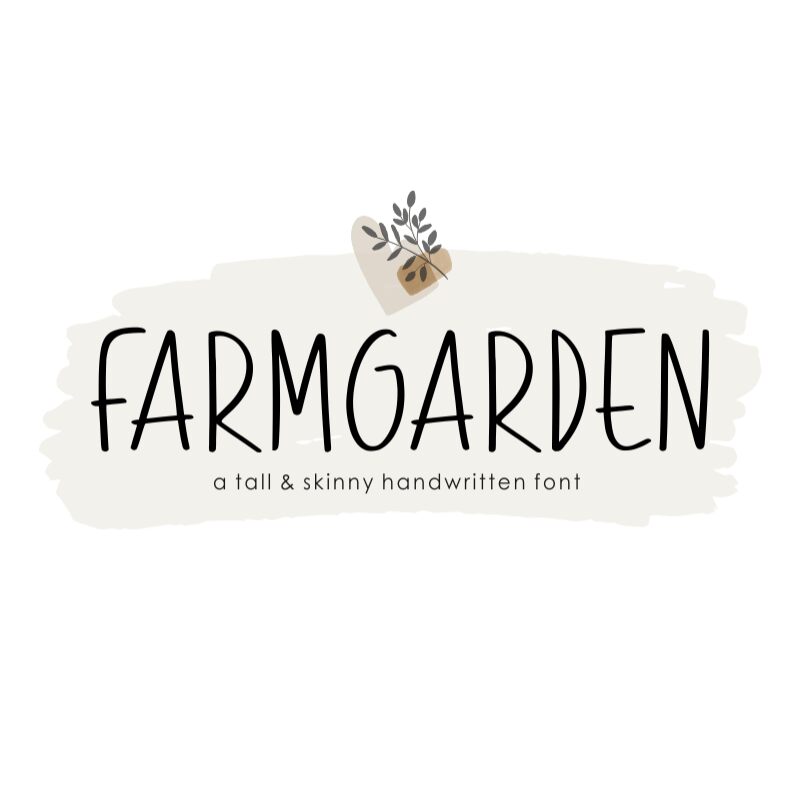
Farmgarden
Looking for a unique and rustic font that will add a touch of charm to your design project? Look no further than Farmgarden, the latest creation from Qwrtype Foundry. With its block handwritten style, semi-light weight and condensed width, this font is perfect for a wide range of design projects - from handmade soap packaging to farm-to-table restaurant menus. Its natural and organic look will give your project an authentic feel that's sure to resonate with your audience. So whether you're designing for a boutique grocery store or an eco-friendly clothing line, Farmgarden is the perfect choice.